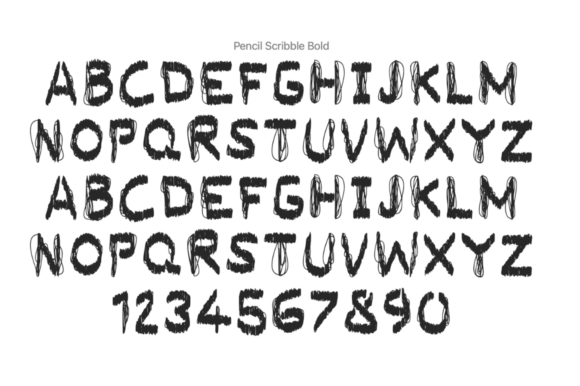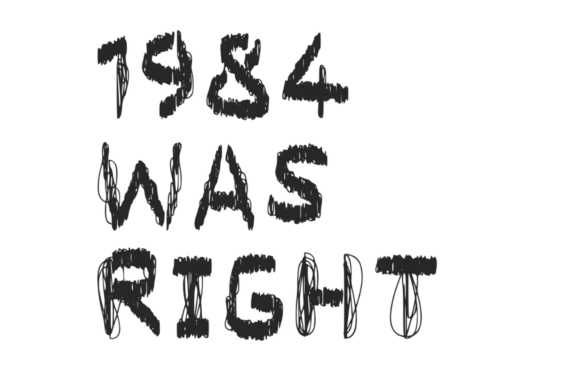
Introduction to Pencil Scribble Bold Font
Pencil Scribble Bold is a modern display font, perfect for bold, fun, and funky designs.
This is just a single bold weight, but Pencil Scribble in all its weights is available, a versatile font that hosts a massive array of glyphs to help you mix it up .
Key Features of Pencil Scribble Bold Font